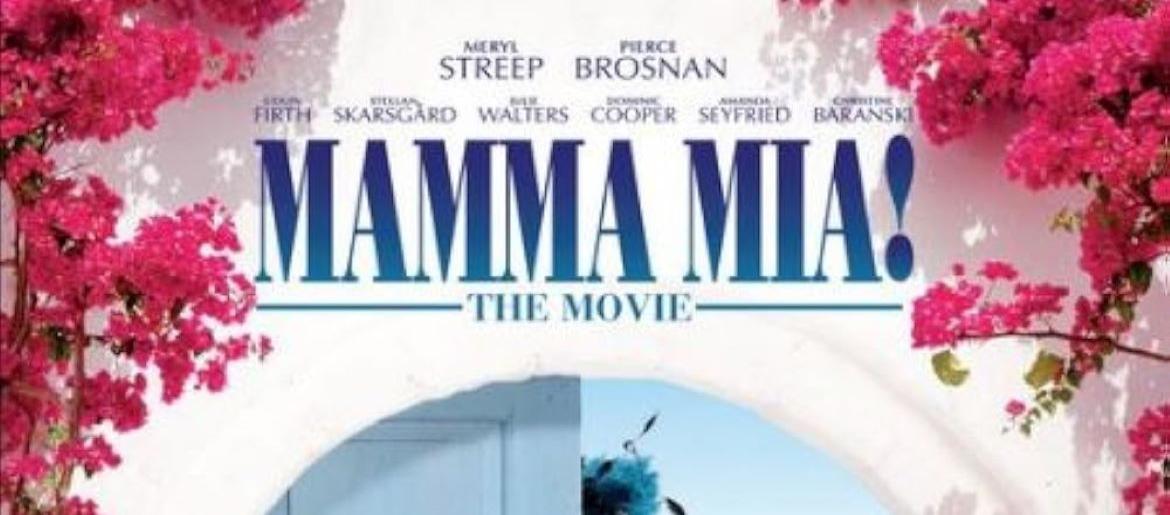
Mamma Mia Font
Mamma Mia font captures the lively, feel-good spirit of the beloved musical and movie. Its stylish, playful lettering and upbeat design evoke sun-soaked islands, catchy songs, and moments of pure joy. Perfect for party invitations, wedding décor, or any project that needs a touch of romance and celebration, this font adds elegance, fun, and musical charm to your designs.
About Mamma Mia
Mamma Mia! is a hit musical and film inspired by the music of ABBA. Set on a beautiful Greek island, the story follows Sophie as she invites three men to her wedding in hopes of discovering which one is her father, all set to ABBA’s iconic songs.